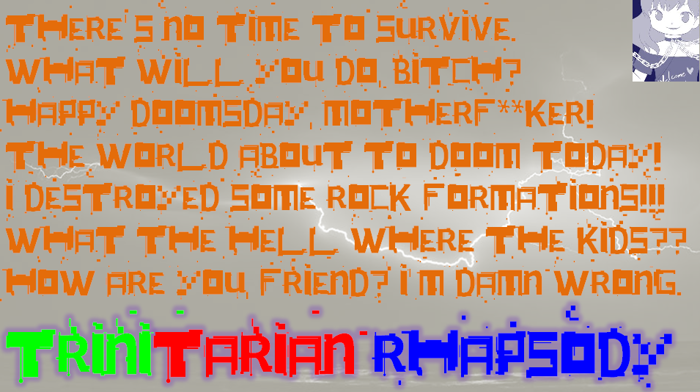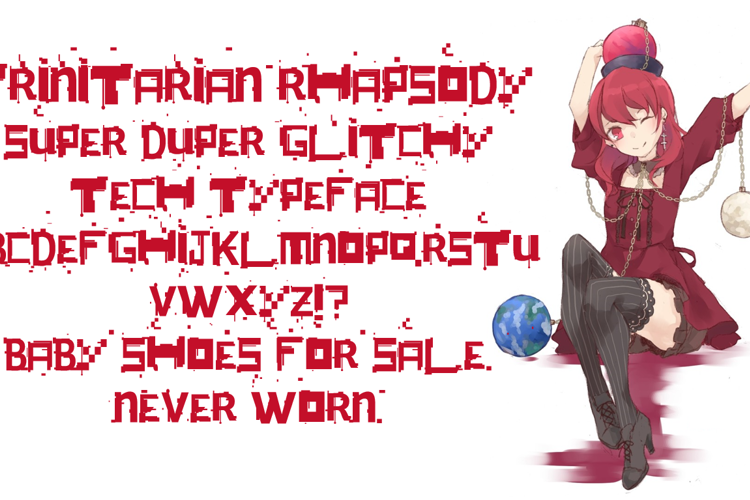
Trinitarian Rhapsody Font
Trinitarian Rhapsody is a distorted futuristic font. This is the second in Spell Card Tribute series. The name of the font come from Hecatia Lapislazuli's spell card:
Japanese: 「トリニタリアンラプソディ」
English: "Trinitarian Rhapsody"